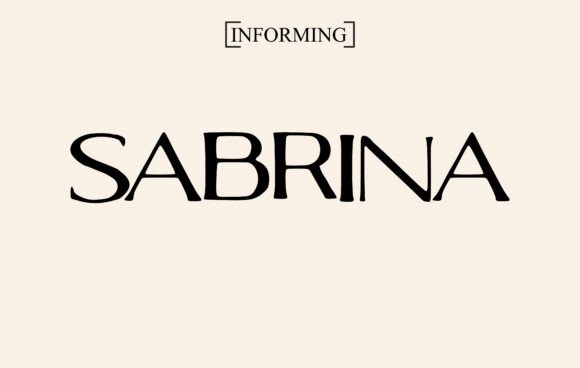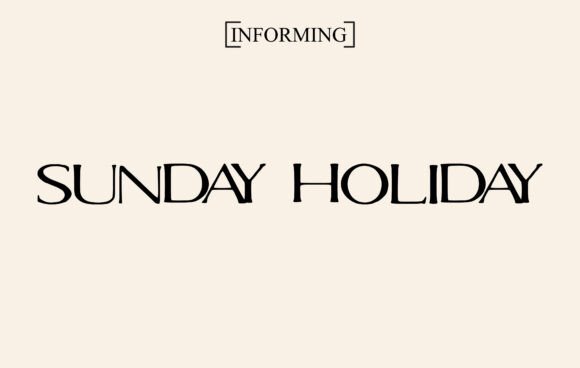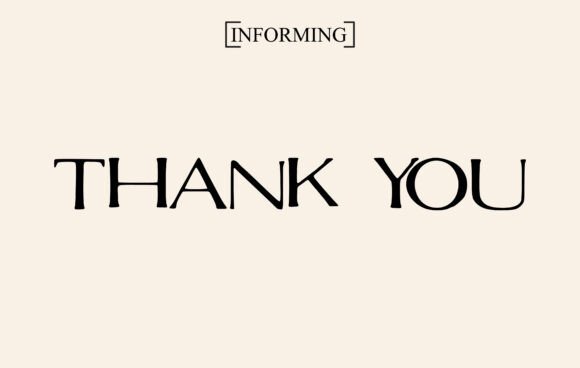
About the Sabrina Font
Add a touch of class to your work with the Sabrina Font, a truly exceptional typeface. This font is designed to be a true favorite and it has the potential to take your creative ideas to the highest level
Sabrina’s strong, yet elegant forms make it ideal for headlines, logos, and short-form text in branding materials and posters. Its legibility is best utilized in larger sizes; avoid using it for body text or extended paragraphs where readability suffers. Consider it for packaging design where a sophisticated yet approachable feel is desired.
The font’s personality is confident and modern, lending itself to brands projecting a sense of authority and style. It works well with minimalist aesthetics. For effective pairings, consider a clean sans-serif like Lato for body copy, or a contrasting script font such as Great Vibes for added flourish in invitations or branding applications where a touch of whimsy is needed.
Avoid pairing Sabrina with overly ornate or heavily decorative fonts, which can clash with its refined simplicity.